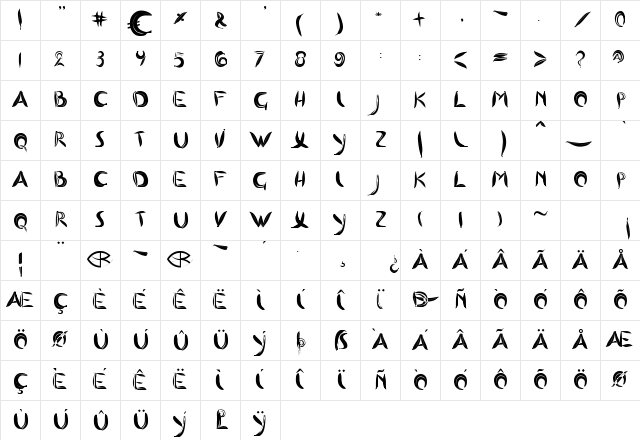
BA naan Regular
Design Context for BA naan
BA naan is a composed and adaptable typeface that performs quietly and consistently across a wide range of design contexts.